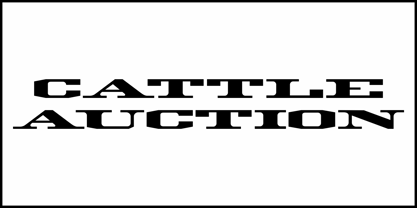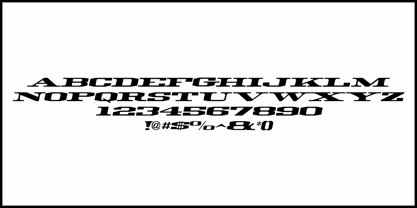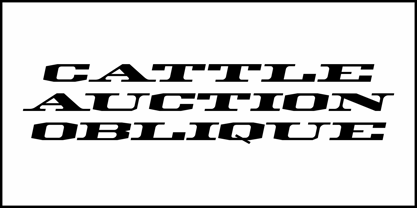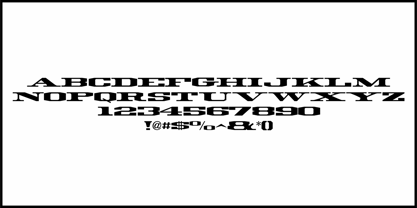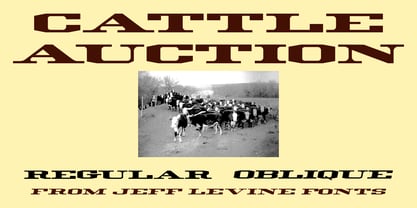
Cattle Auction JNL
by Jeff Levine
The Cattle Auction JNL Font Family was designed by Jeff Levine and published by Jeff Levine. Cattle Auction JNL contains 2 styles and family package options.
A wide, chamfered slab serif lettering design found in the 1907 book "Lettering, Drawing" from the International Correspondence Schools inspired Cattle Auction JNL, which is available in both regular and oblique versions. Originally called "Railroad Block", the hand lettering is reminiscent of wood type used on old Wild West posters, handbills, broadsides , etc.
About Jeff Levine
Jeff Levine has been in love with lettering since the third grade, when a schoolmate brought a lettering stencil into class. He has worked in both the graphics and music industries, and began his work with digital type via his own site, which hosted over one hundred free dingbat fonts until its retirement in 2009. Although these fonts were experimental at best, Jeff received "thank you" letters from points all over the world for making his designs available. Encouraged by these responses, Jeff decided to set his sights on creating interesting and commercially viable type fonts.